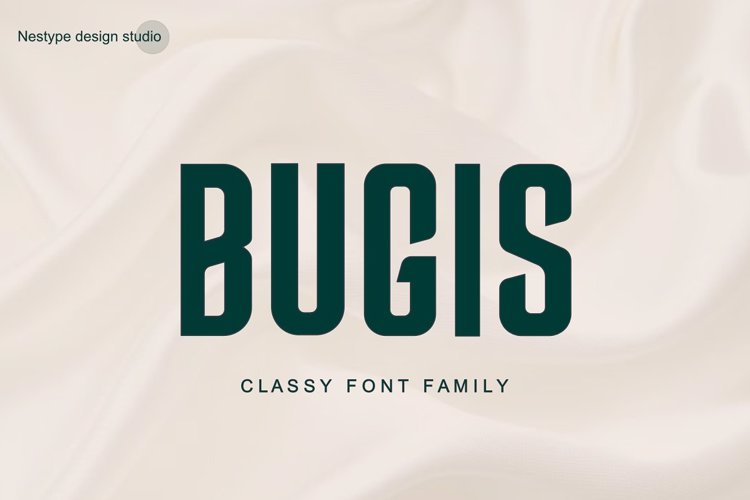
Bugis Classy Modern Font
About Bugis Classy Modern Font
The name Bugis is taken from one of the names of the tribes in Asia, it describes strength and charm.